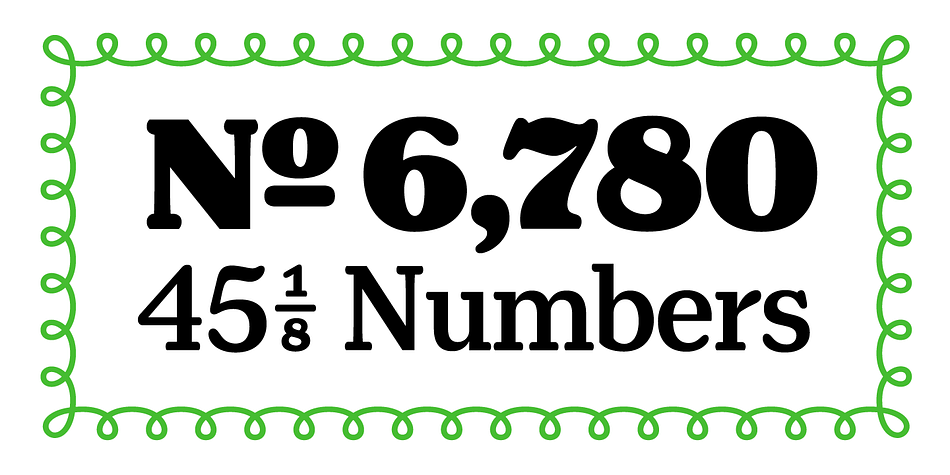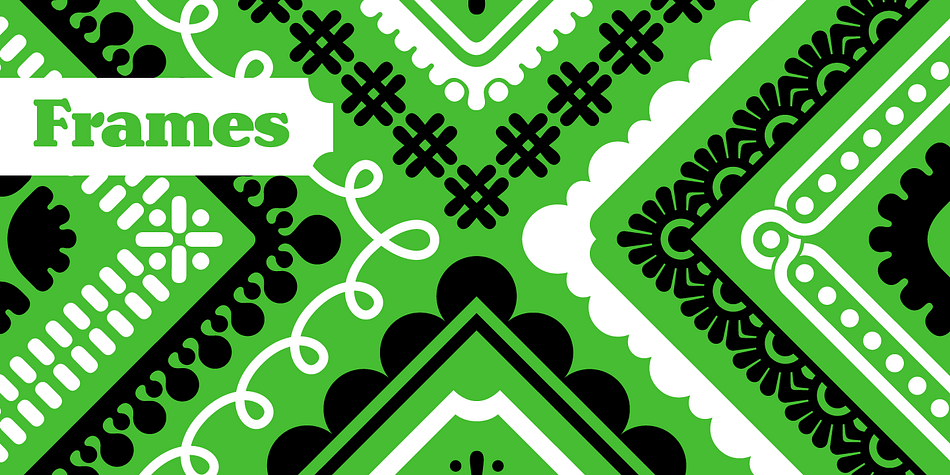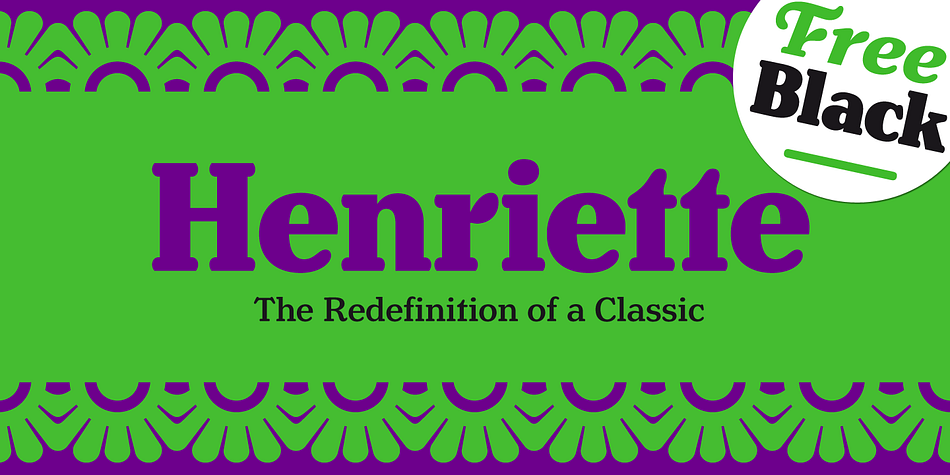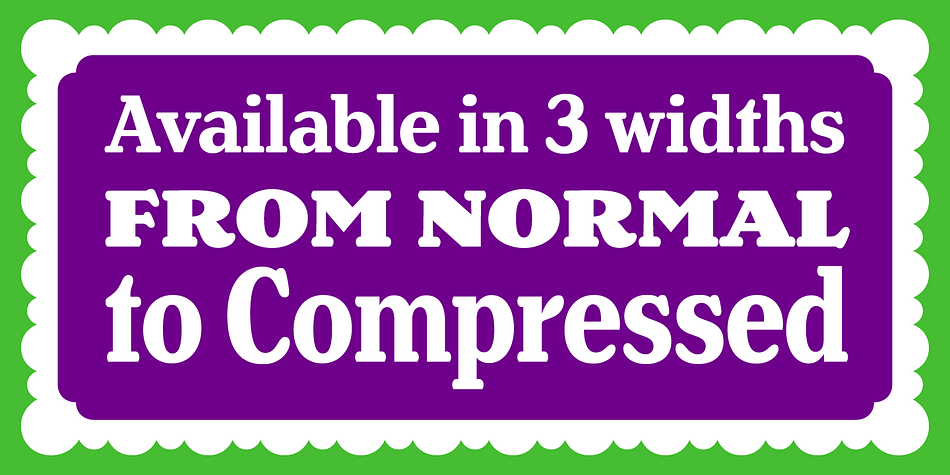
Designed by Michael Hochleitner, Henriette is a dingbat and serif font family. This typeface has thirty-one styles and was published by Typejockeys.
The new type family of the Viennese foundry Typejockeys is available in 30 weights and so provides a great number of possible applications. Classy, elegant and sophisticated, as well as playful and a little knobbly. Perfect for headlines, logotypes, but also copytexts.
Basis for the alphabet were the letters of Vienna’s street signs. But Henriette is not a simple digitization, rather it is a reinterpretation of 16 different styles, you can find on the white-on-blue enamel plates today.
All Roman and all Italic weights each offer the same character set and features throughout the width spectrum – Normal, Condensed, Compressed. This gives even more flexibity to you, when it comes to fitting a headline or creating an awesome logotype. The Romans come with Small Caps. The Italics with Swash Caps. All weights provide ligatures, contextual substitutes and several figure styles. A wide range of languages is supported throughout.